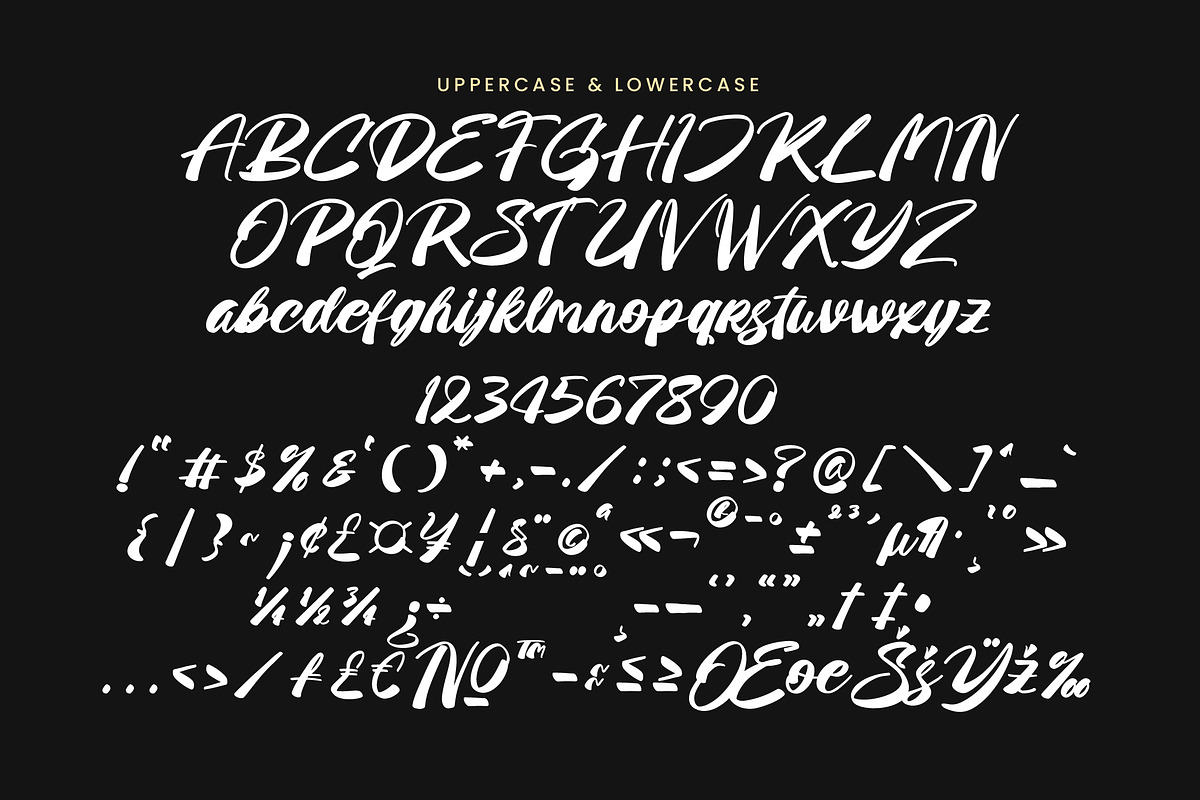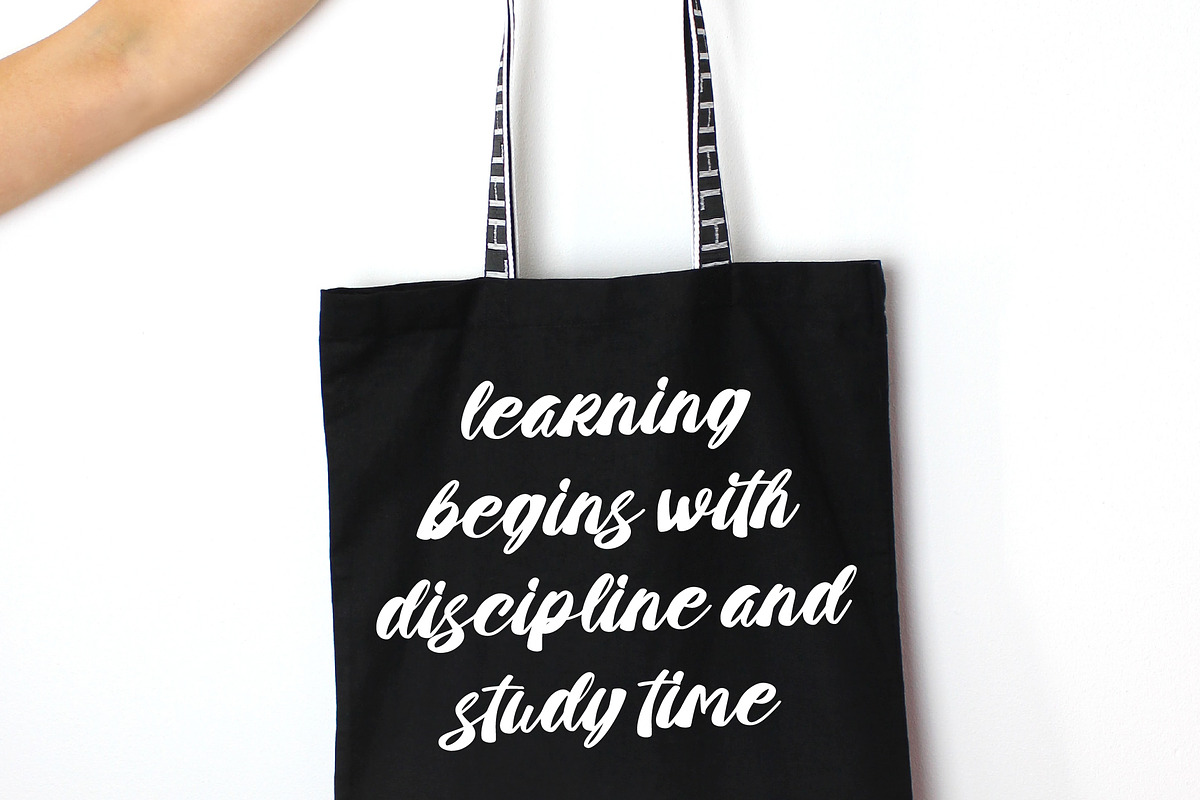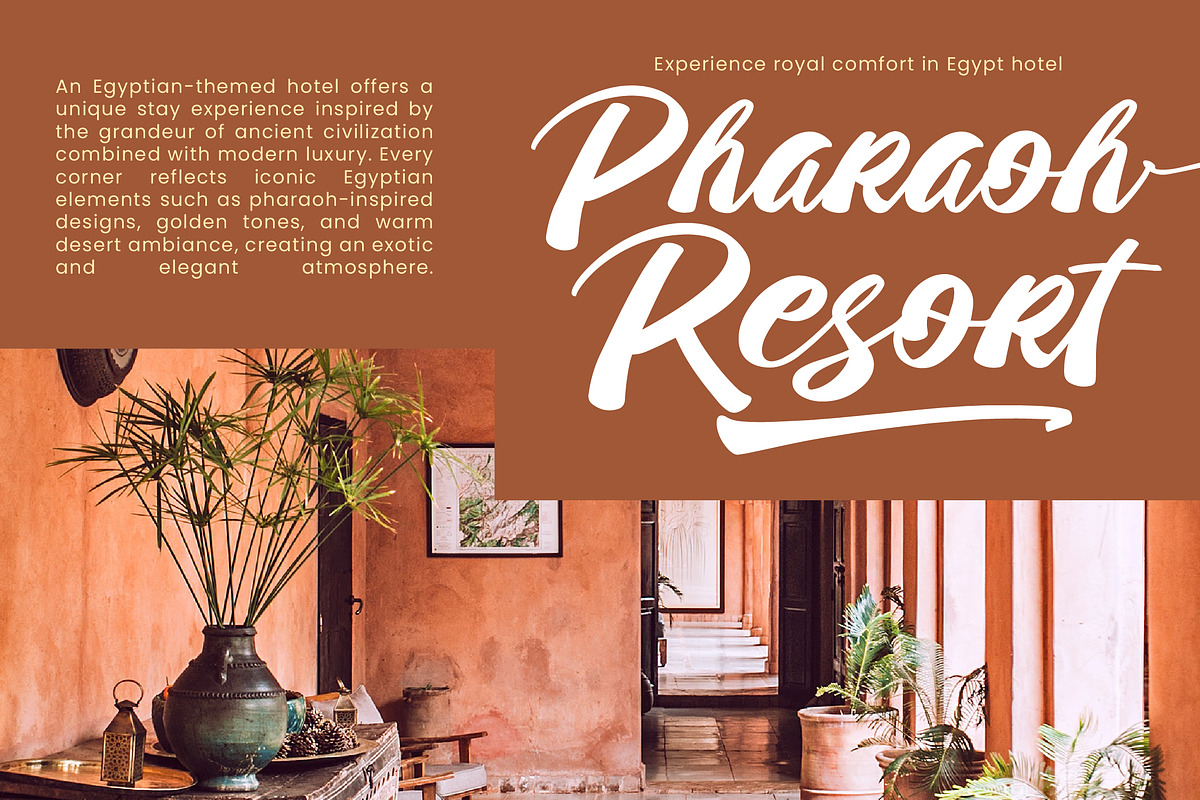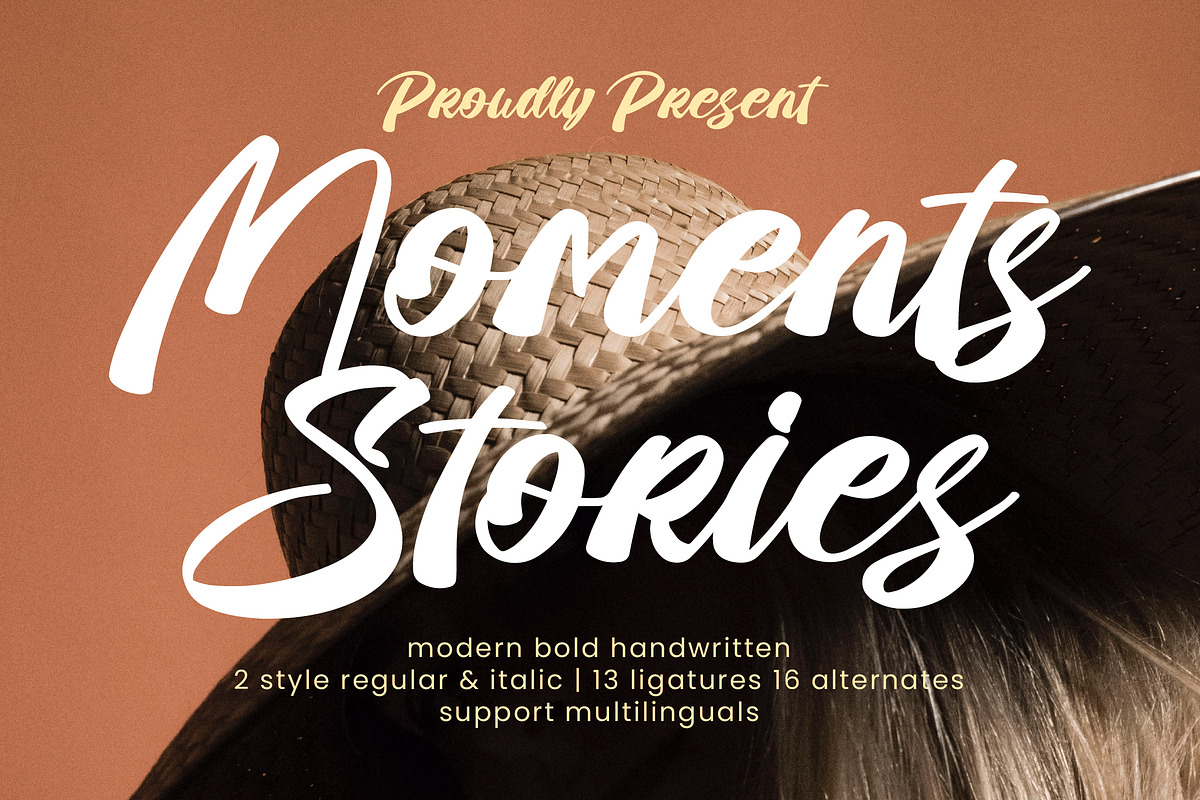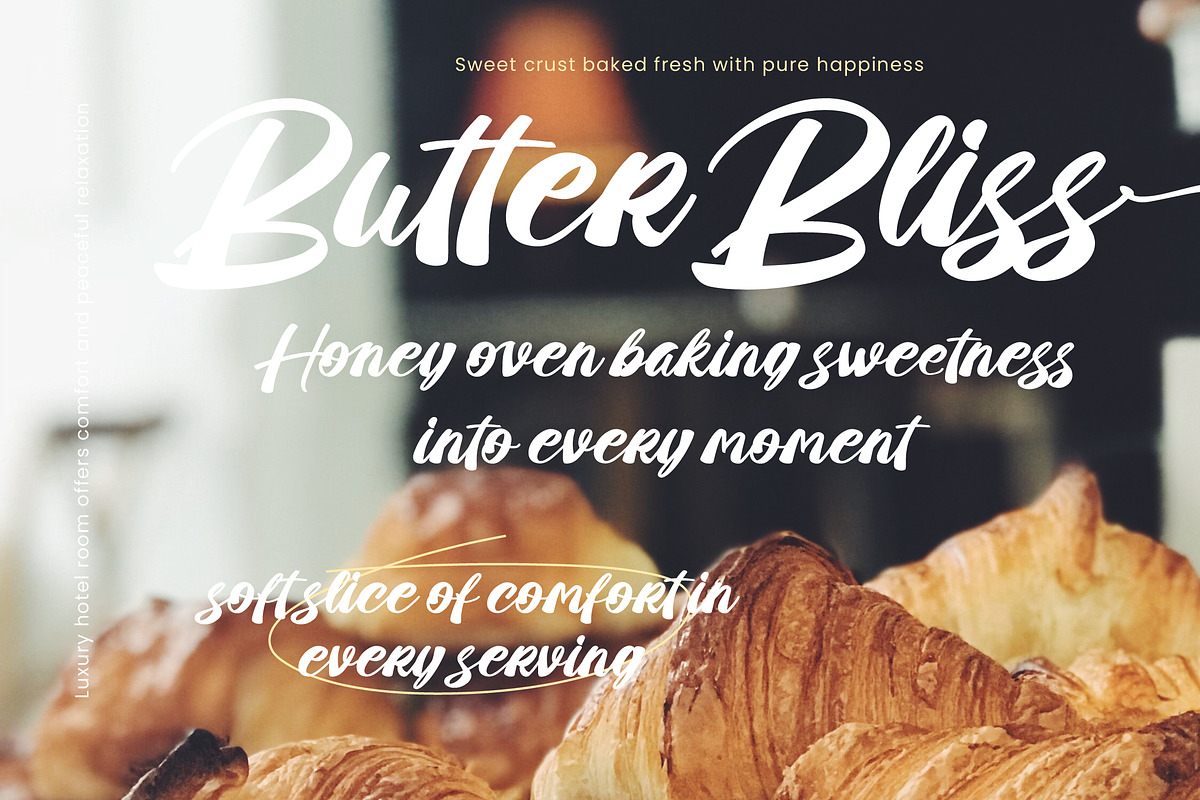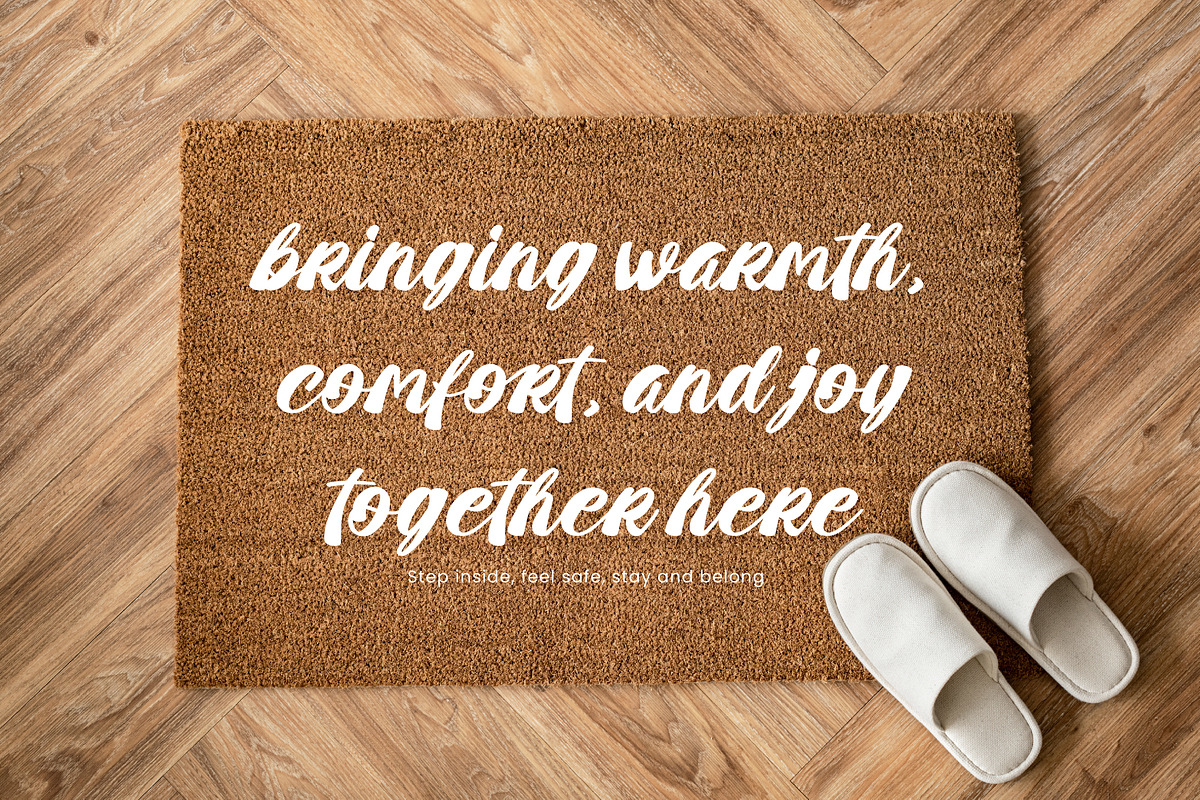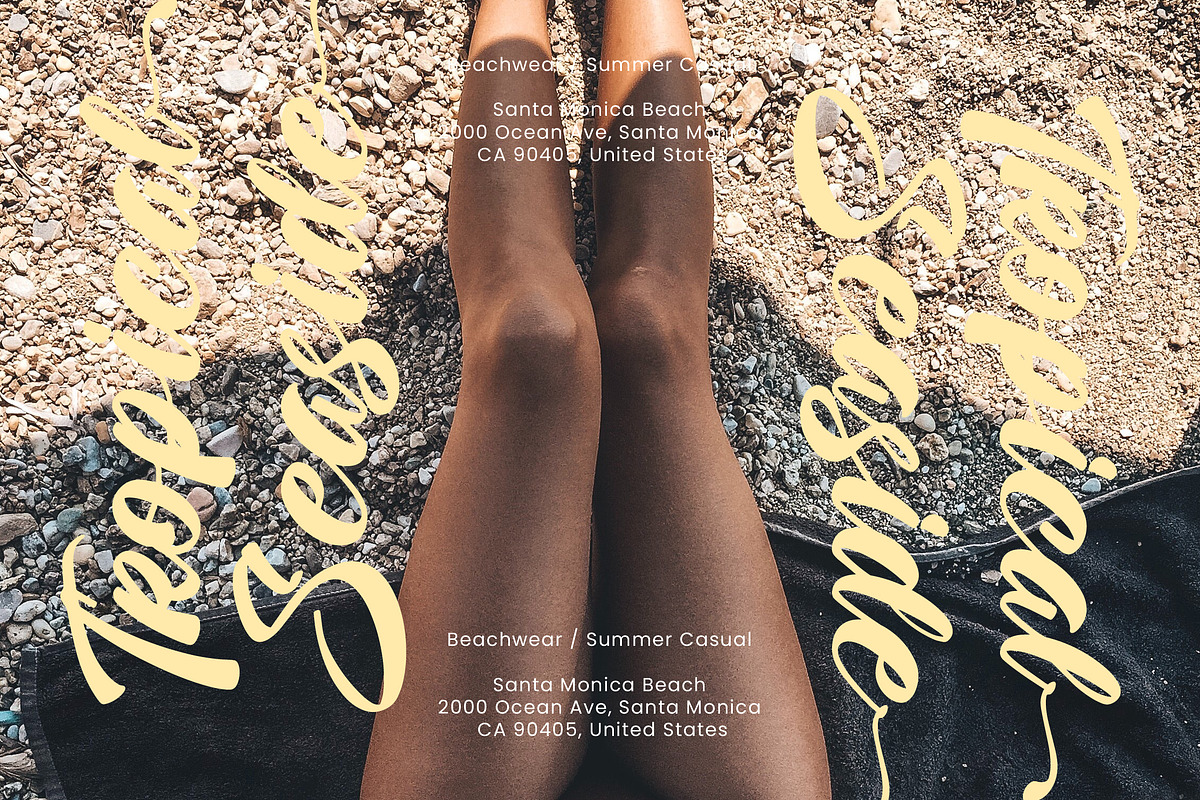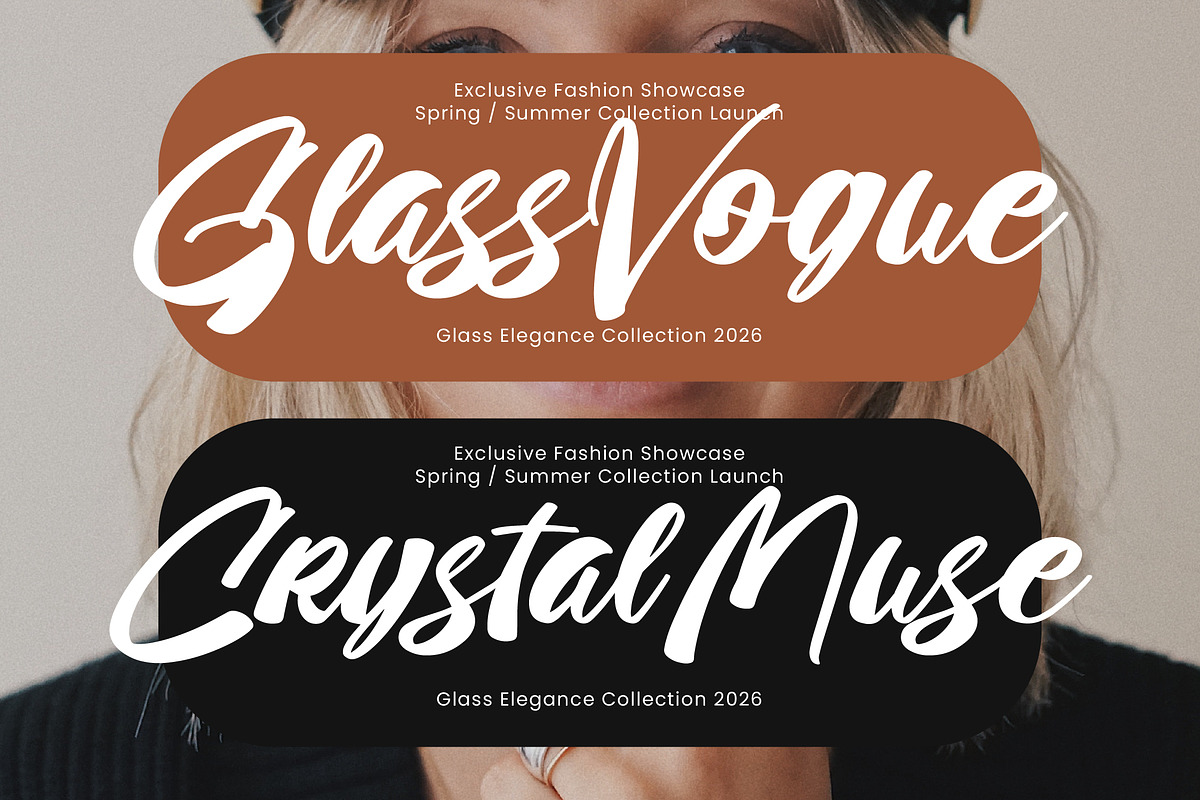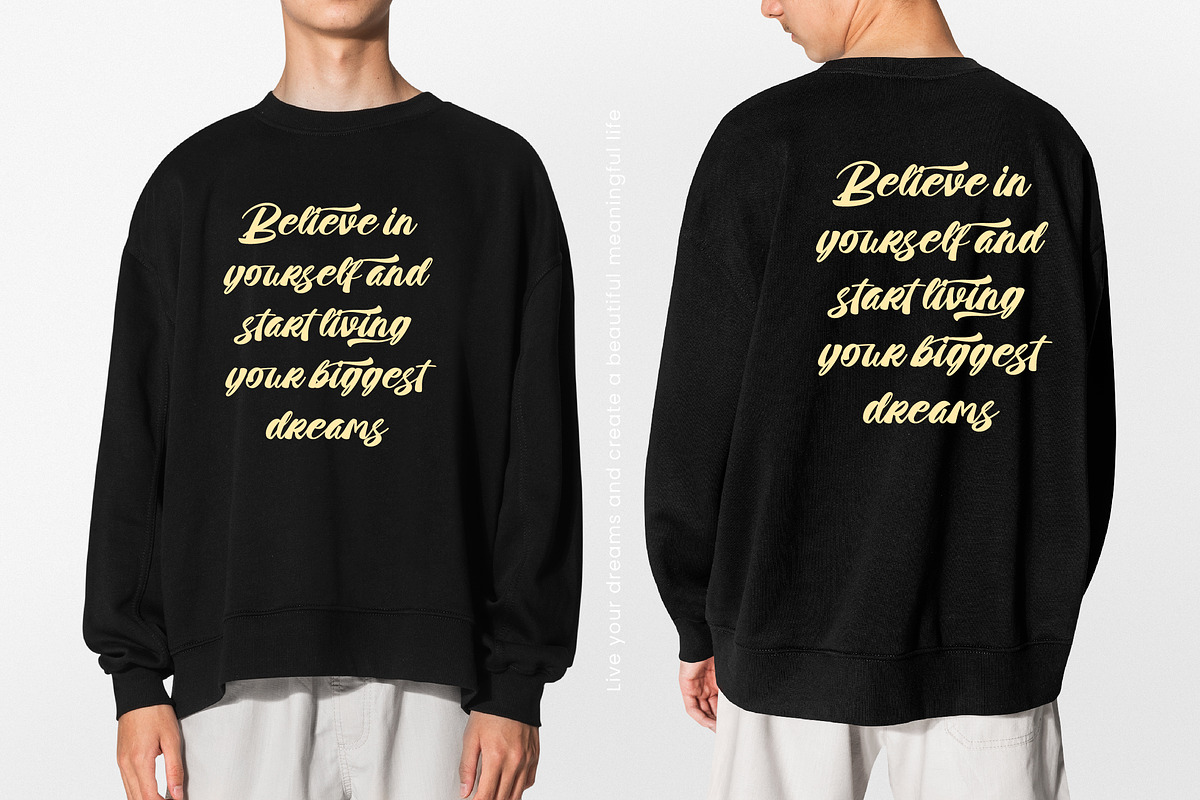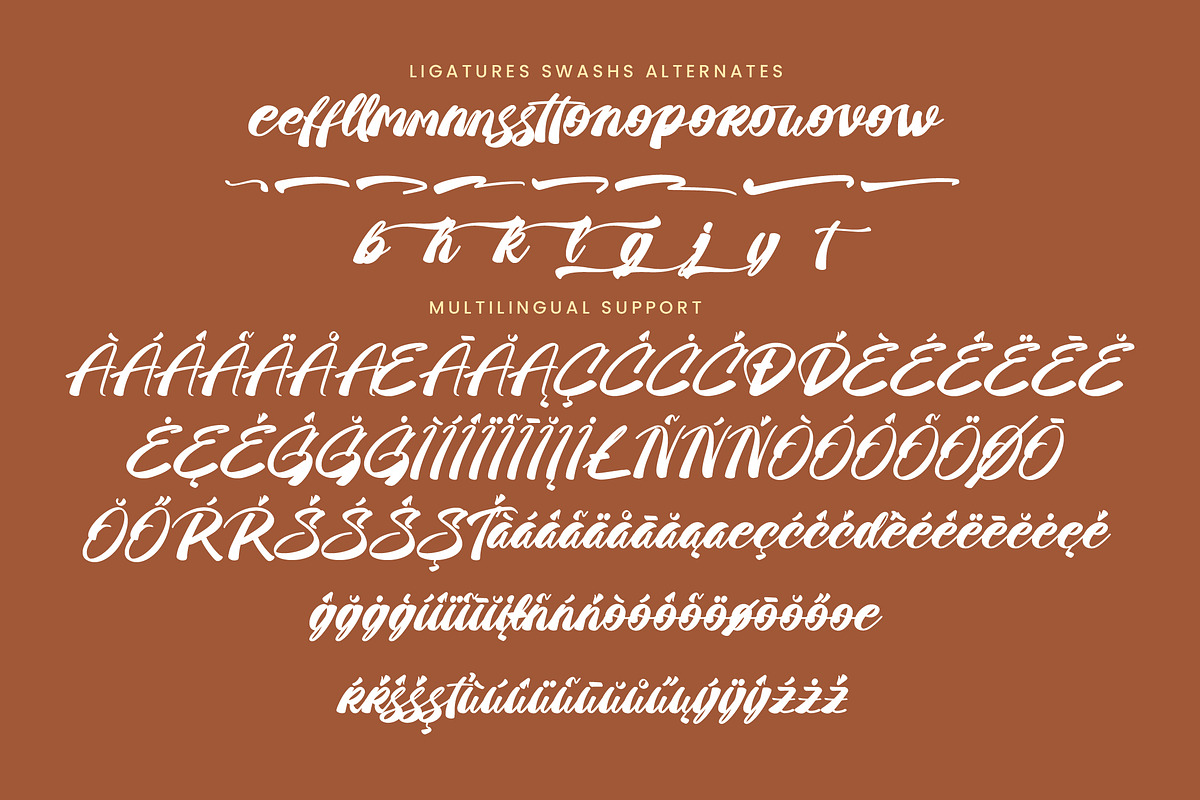
Moments Stories Bold Handwritten
Moments Stories – Modern Bold Handwritten
Moments Stories is a modern bold handwritten font featuring strong strokes and expressive personality. Designed with a casual handwritten style, this font delivers a fun, energetic, and eye-catching appearance suitable for modern creative projects.
Comes with 2 styles — Regular & Italic — along with 13 ligatures and 16 alternates to give your typography a more natural and dynamic handwritten look.
Perfect for branding, packaging, social media, posters, quotes, apparel, and lifestyle designs that need a bold and friendly handwritten touch.
13 Ligatures
16 Alternates